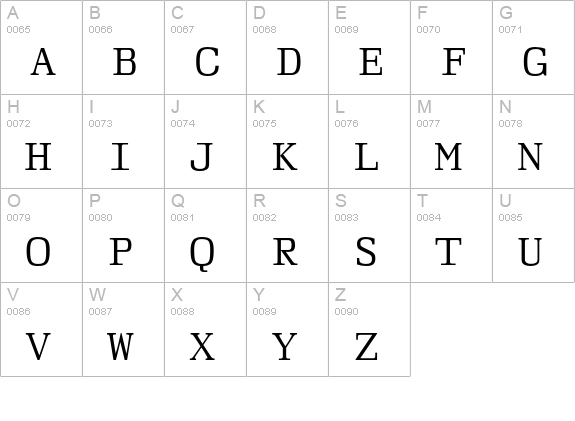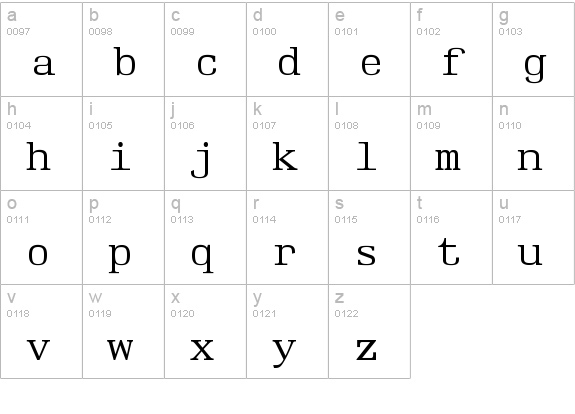
MonantiEF-Regular Font Details
MonantiEF-Regular is the standard, neutral variant in the MonantiEF typeface family \xE2\x80\x94 well suited to general body text, paragraphs, and standard typographic work.
MonantiEF-Regular font is a stylish and modern typeface that exudes elegance and sophistication. With its clean lines and balanced proportions, this font is perfect for a wide range of design projects, from branding to editorial layouts. Its versatility allows it to be used for both headlines and body text, making it a valuable addition to any designer's toolkit. What sets MonantiEF-Regular font apart is not only its aesthetic appeal but also its accessibility. Designed with readability in mind, this font ensures that your message is conveyed clearly and effectively. Whether you're working on a website, a poster, or a logo, MonantiEF-Regular font will help you achieve a professional and polished look. And the best part? MonantiEF-Regular font is completely free to download at FontsMarket.com. This means that you can start using it in your projects right away without any additional cost. Don't miss out on this opportunity to enhance your designs with the timeless beauty of MonantiEF-Regular font.